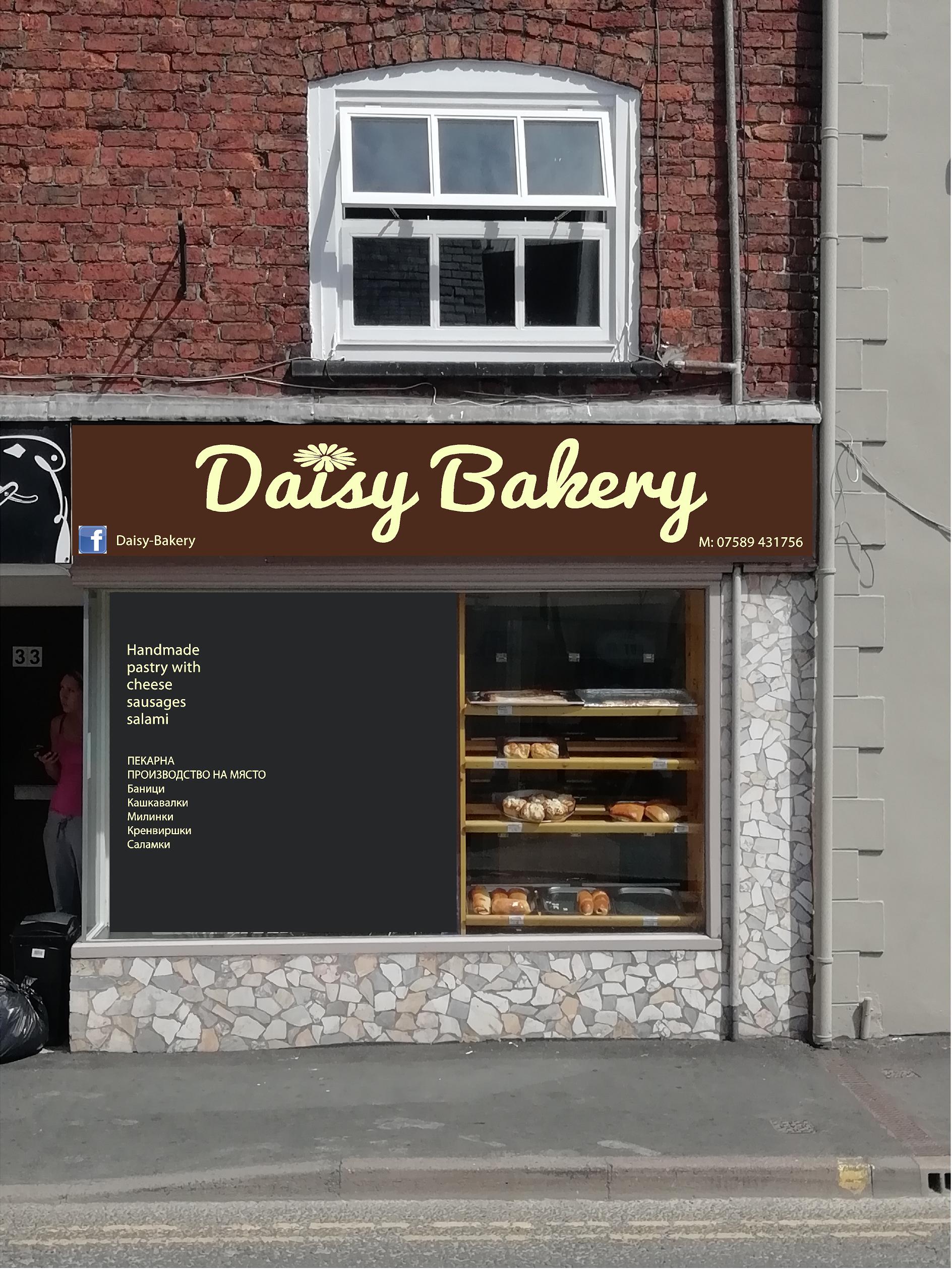
Posted by Jean Oakley on 7 August 2018 at 09:11Hi all, I have been asked to fit some signage with Bulgarian text. I have googled Blugarian fonts but the fonts look just like our british fonts without all the strange bits. Im going to struggle to copy the text as it is so dont want anything too fancy. Ive got a meeting with the guy towards the end of the week so he can spell check it but at the moment i cant find any suitable fonts. Help as always greatly apreciated jean
hi i used one once called myriad pro was suggested to me by a Bulgarian and he seemed to be happy with it.
Hi Dave, ive just taken a look at the font you suggeted but it just looks like a standard british font? The text i have to do is like the attached
ПЕКАРНА
ПРОИЗВОДСТВО НА МЯСТО
Баници
Кашкавалки
Милинки
Кренвиршки
Саламки -
I’ve just copied that text from the thread, into illustrator using myriad pro, and it copies perfectly. :thumbsup:
PDF attached with it outlined.
Hi Dave, ok im being really thick here but im just not getting this. I have downloaded Myriad Pro. Im using flexisign to produce the graphics. How do i reproduce the lettering onto the screen? for example the N which is back to front or how do i find the first letter of this text whatever it is i dont have a clue. Any help greatfully recieved thanks jean
I would ask the customer supply the text, either by e-mail or in a word document or similar.
Highlight the text, copy it, create a text box with your choosen font. and then paste the text.
Provided the font you’ve chosen has the characters included you should be able to work away with it.
I’ve done the same with chinese characters.
Hi David. I copied it from his email made a box with Myriad Pro bold and pasted it in. I now have a several lines of ???????? any ideas?
Strange?
Try another font, perhaps arial or another ‘standard’ font that come pre-installed on most machines they should have a full character set.
I just did a quick search on t’interweb for ‘Bulgarian fonts’ and found this;
Are of them usable for you?
If you’re meeting up with the guy this week, you could possibly try and get a copy of whatever font it is he uses off his PC
Hi everyone and thanks for all your help and advice. I managed to copy as a PDF from his email and just dropped that onto Flexi. Ive no idea what font its in but the weight is good in comparison to the english text so im just going to leave it as it is. Cant believe in all the years ive been doing this job ive never had to use a different counties font/text.